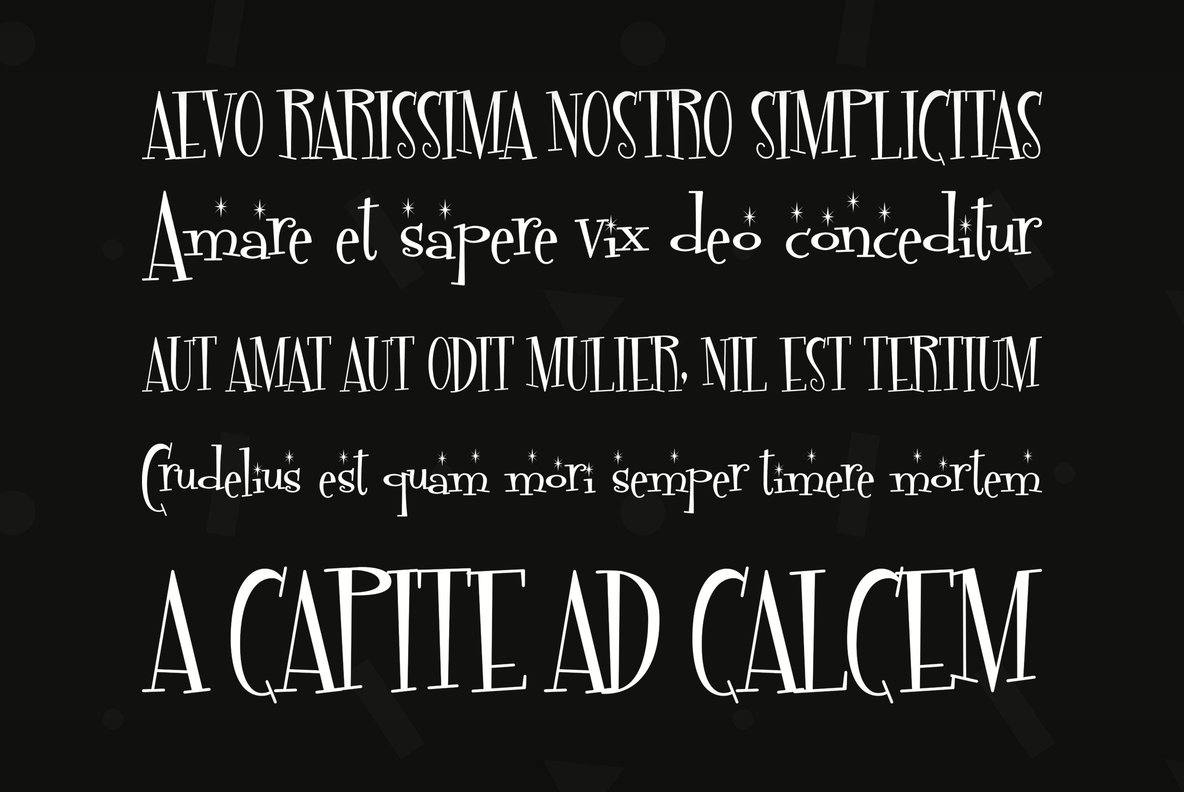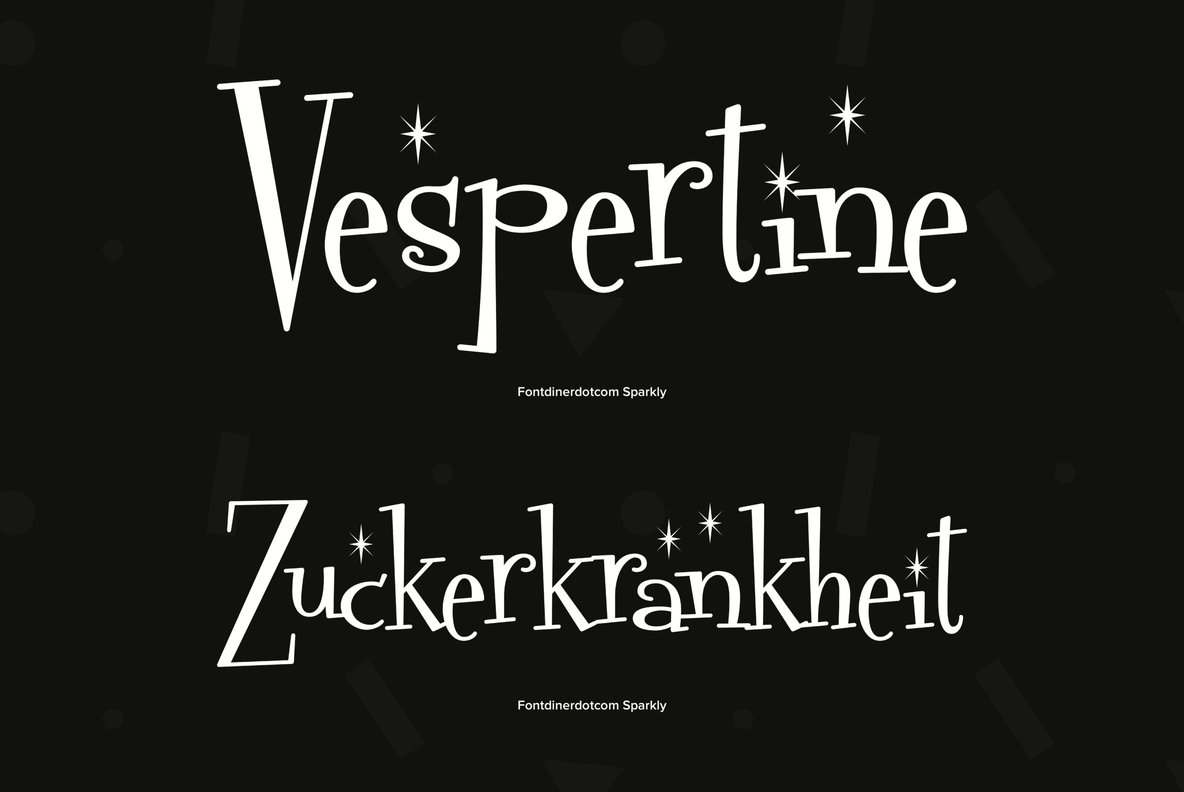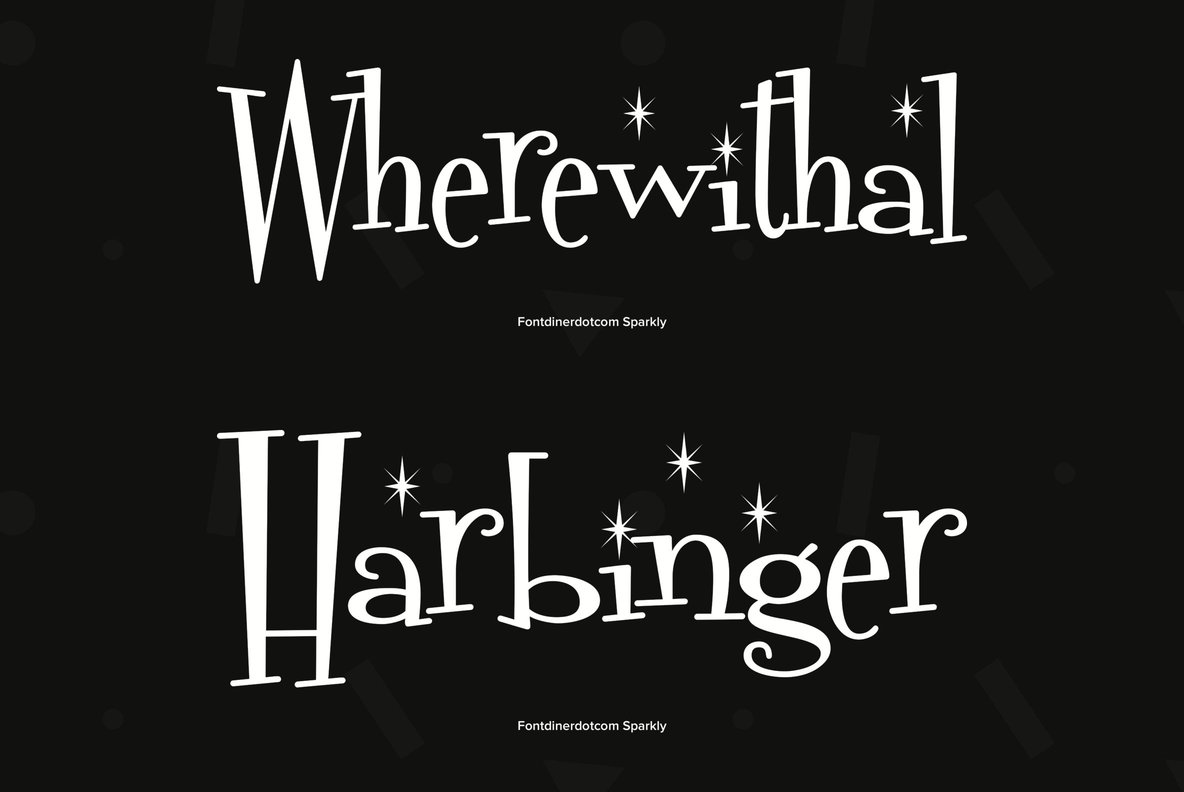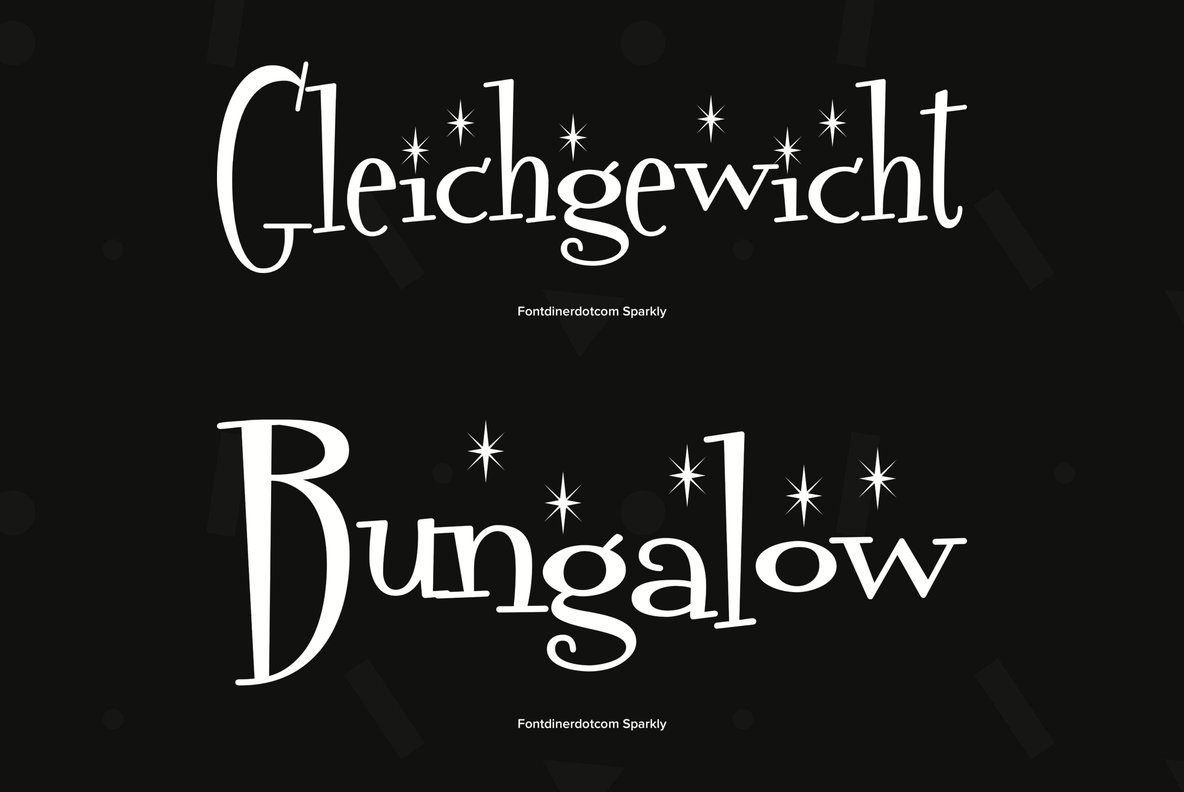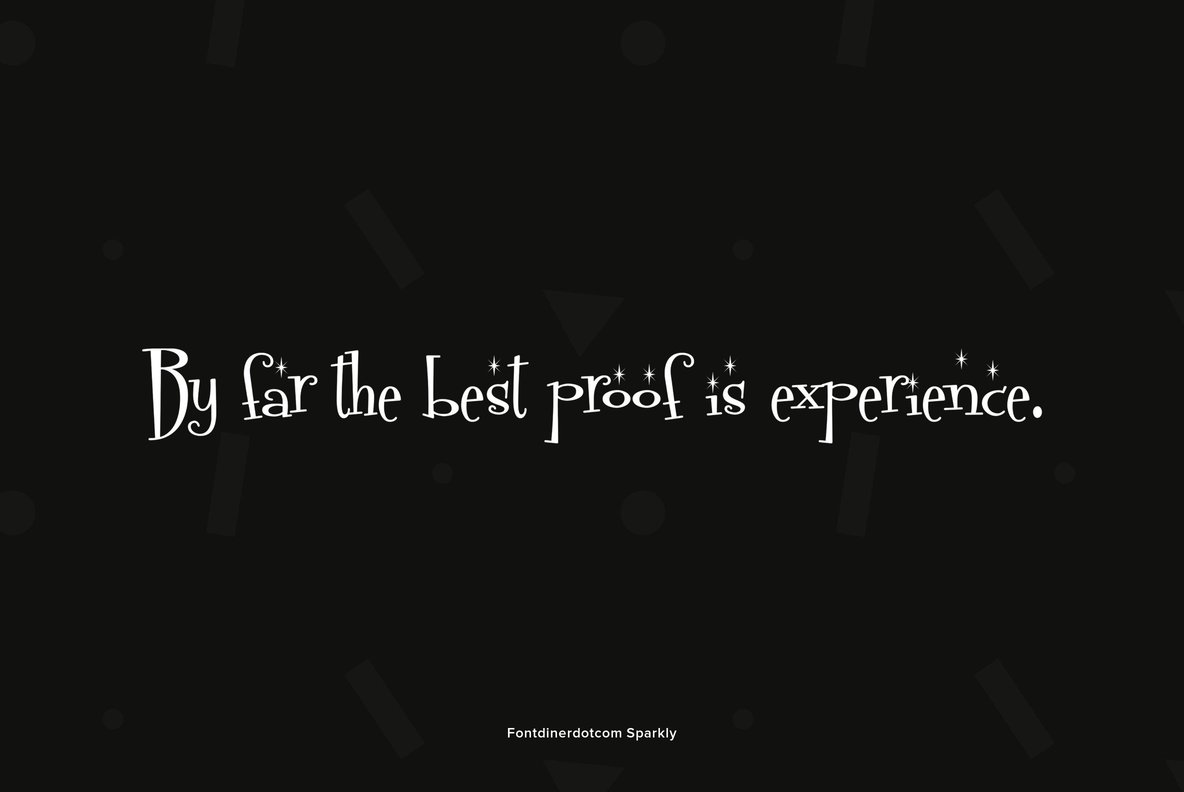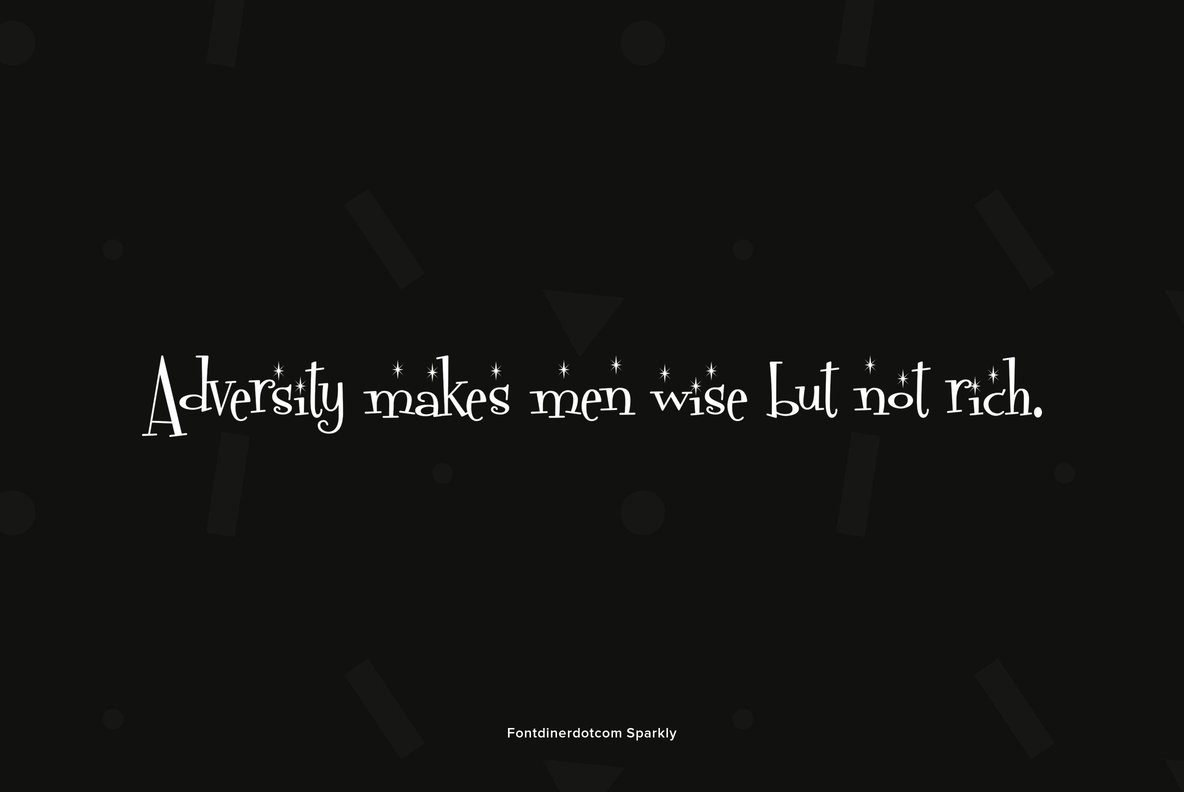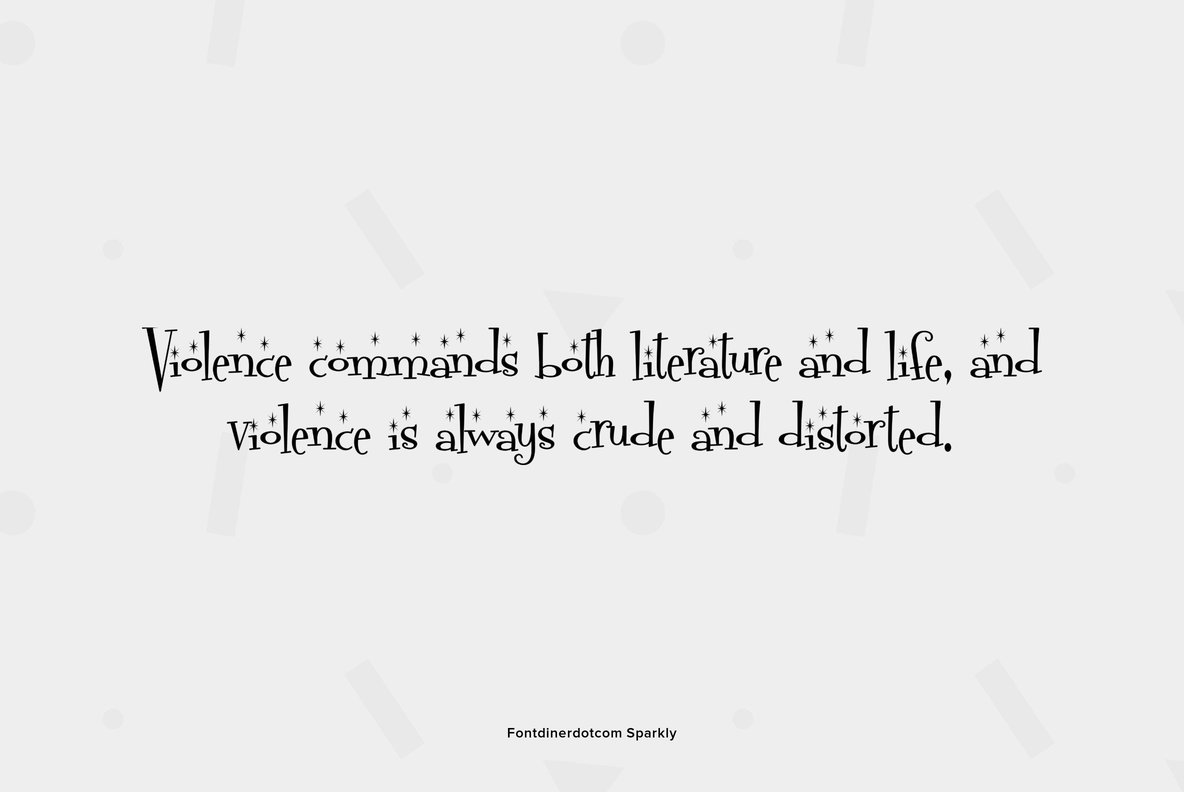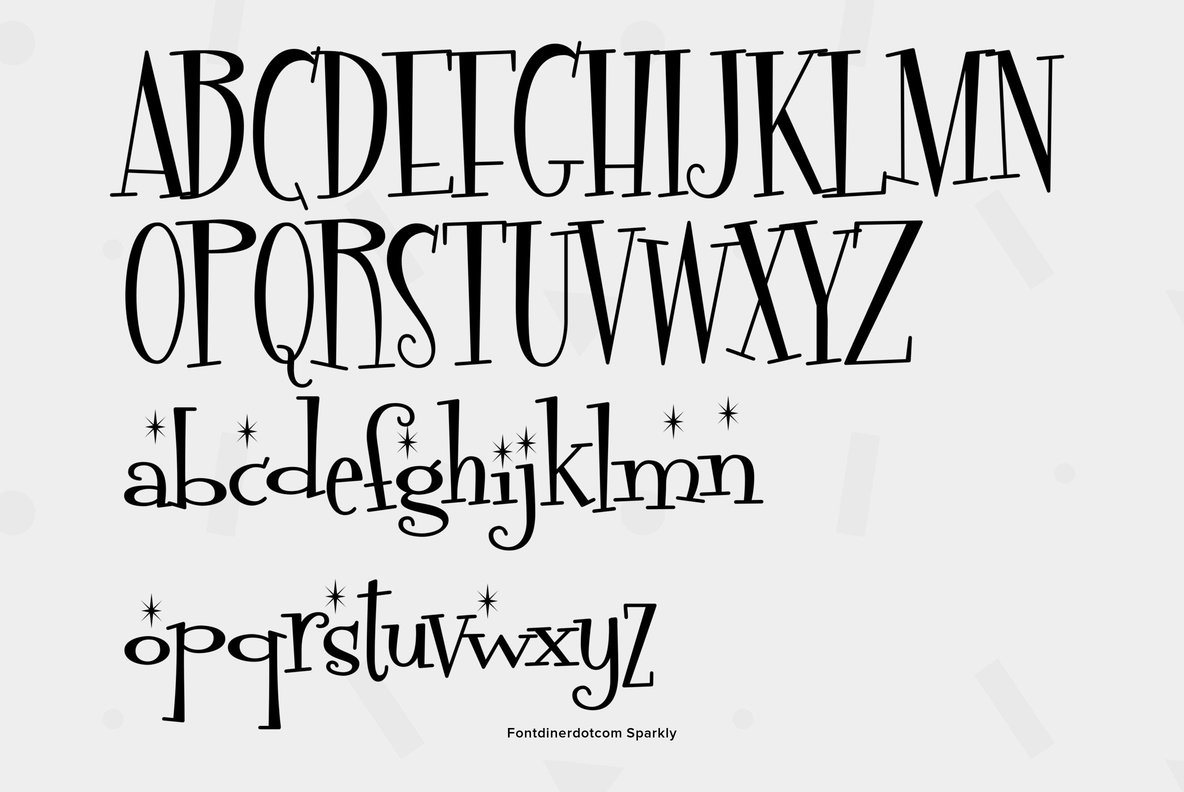
Fontdinerdotcom Sparkly
Like our Fontdinerdotcom font, but nothing makes a font come alive better than sparklies.
Stuart Sandler launched the Font Diner foundry in 1996 and has become a major resource for retro design software products. He has created more than 500 original typefaces for the graphic design industry and established a reputation as the premier retro display typography designer inspired by 1950s popular cult...